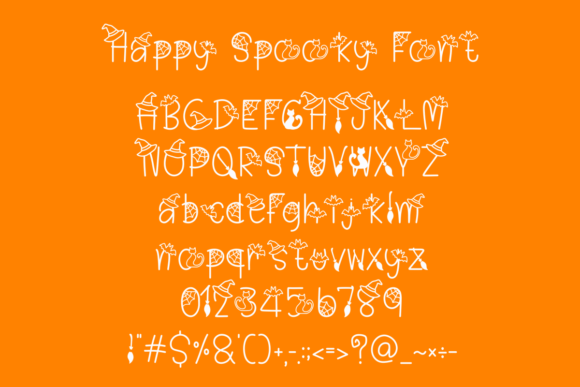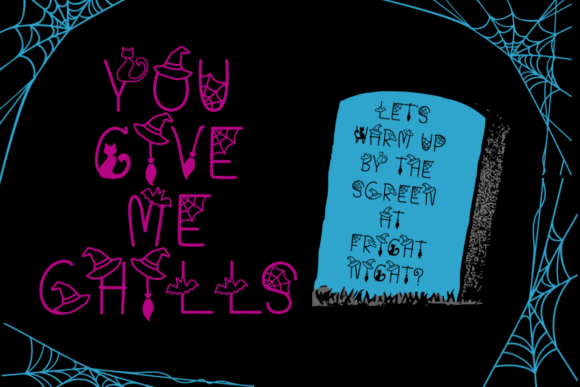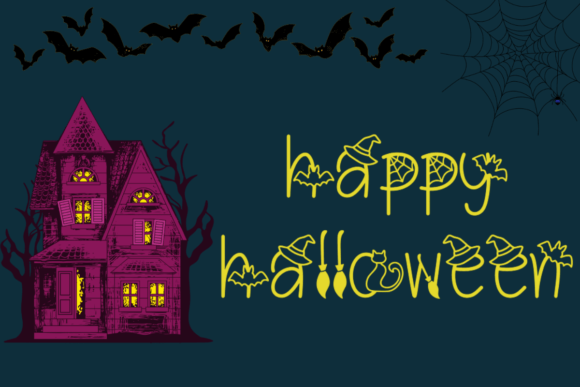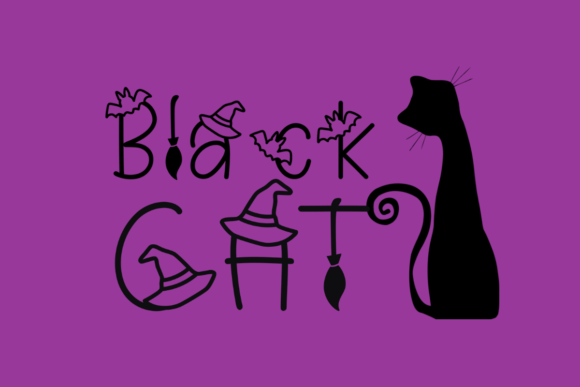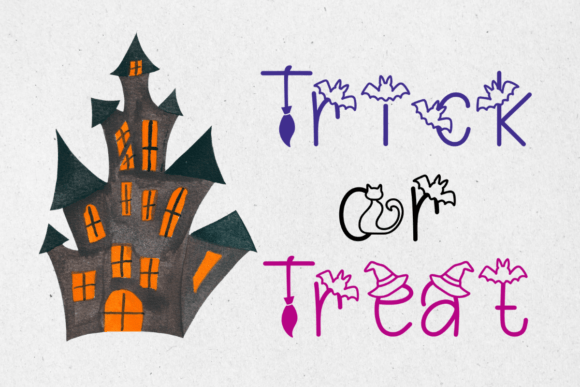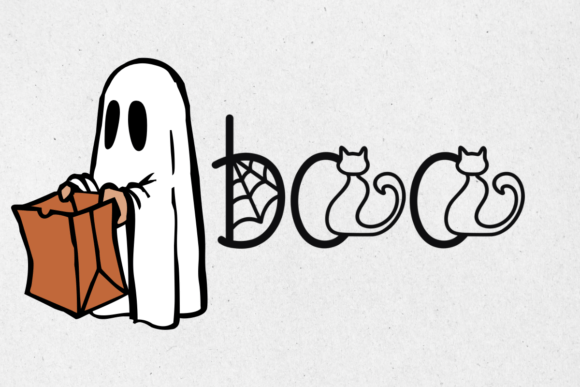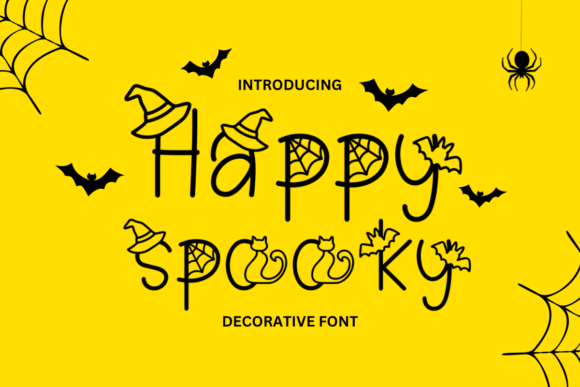
Introducing Happy Spooky Font: Add a Lovely Touch to Your Designs this Halloween Season
Are you looking for a font that captures the essence of Halloween while still being fun and playful? Look no further than the Happy Spooky Font! This decorative font is perfect for designers and crafters who want to add a touch of whimsy to their projects. In this article, we’ll dive into the features and benefits of Happy Spooky Font, and explore the various ways you can use it to create amazing designs.
What is Happy Spooky Font?
Happy Spooky Font is a unique and fun decorative font that embodies the spirit of Halloween. Its playful and lively design makes it perfect for a variety of projects, from Halloween-themed designs to children’s themes, cartoons, and more. The font’s quirky and charming style is sure to capture the attention of your audience and leave a lasting impression.
Features of Happy Spooky Font
So, what makes Happy Spooky Font so special? Here are some of its key features:
- Halloween Vibe: The font has a distinct Halloween feel to it, making it perfect for designs related to the spooky season.
- Fun and Playful: Happy Spooky Font is designed to be fun and playful, making it suitable for children’s themes and cartoon-related designs.
- Decorative: The font has a decorative style that adds a touch of elegance and sophistication to your designs.
- Versatile: Happy Spooky Font can be used for a wide range of projects, from t-shirts and tote bags to stickers and logos.
Uses of Happy Spooky Font
The possibilities are endless when it comes to using Happy Spooky Font. Here are some ideas to get you started:
- T-Shirts and Apparel: Create eye-catching Halloween-themed t-shirts, hoodies, and hats using Happy Spooky Font.
- Tote Bags and Accessories: Add a playful touch to tote bags, stickers, and other accessories with this fun font.
- Logos and Branding: Use Happy Spooky Font to create unique and memorable logos for your business or brand.
- Cards and Invitations: Create spooky-ooky Halloween cards and invitations that will leave your friends and family in awe.
- Quotes and Posters: Use Happy Spooky Font to create inspiring quotes and posters that will add a touch of Halloween magic to any room.
Why Choose Happy Spooky Font?
So, why should you choose Happy Spooky Font for your next project? Here are some reasons:
- Unique and Exclusive: Happy Spooky Font is a one-of-a-kind font that will set your designs apart from the rest.
- High-Quality: Happy Spooky Font is a high-quality font that is designed to produce crisp and clear results.
In conclusion, Happy Spooky Font is a fun and decorative font that is perfect for designers and crafters who want to add a touch of Halloween magic to their projects. With its unique and playful design, this font is sure to capture the attention of your audience and leave a lasting impression. Whether you’re creating Halloween-themed designs, children’s themes, or cartoon-related projects, Happy Spooky Font is the perfect choice. So, what are you waiting for? Download Happy Spooky Font today and start creating amazing designs!